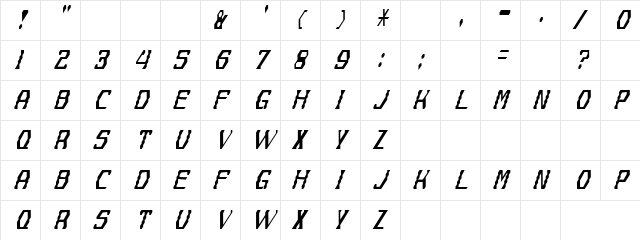
Masvcot Regular
Design Context for Masvcot Typeface
Masvcot takes a measured approach to typography — its balanced proportions and neutral character make it a reliable workhorse for both digital and print work.